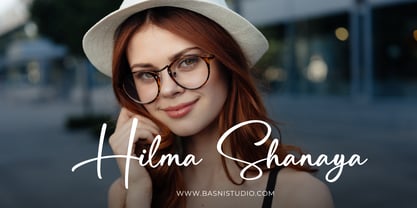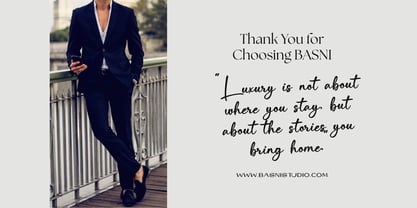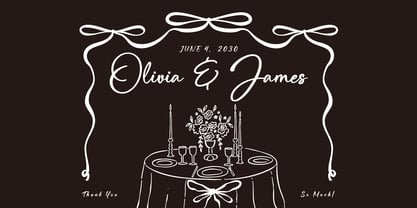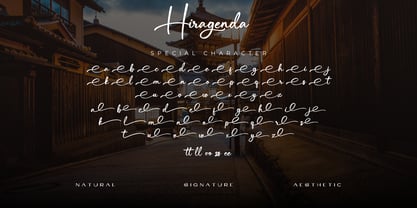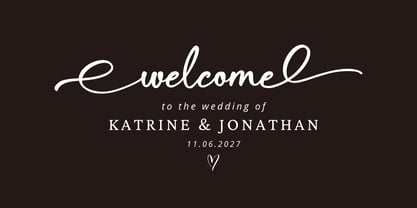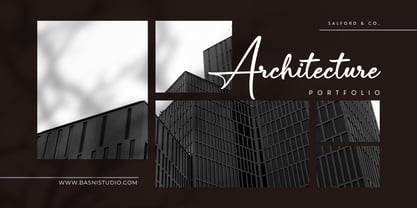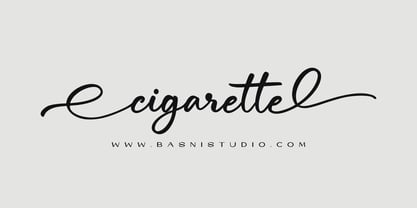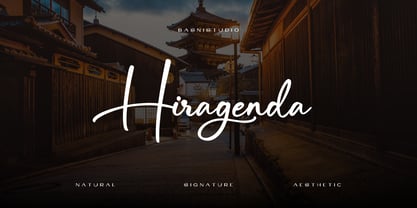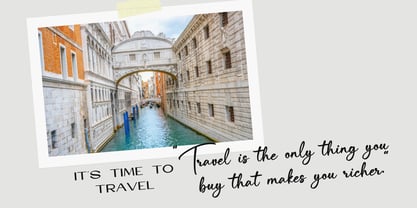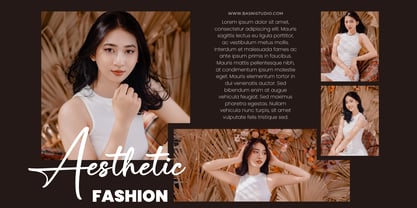
Hiragenda
A família de fontes Hiragenda foi desenhada por Bery Arisandi e publicada pela Basnistudio. Hiragenda contém 1 estilos. Saiba mais sobre esta família
Hiragenda – Signature Font
Hiragenda Signature Font Created with real pen strokes for a natural look and casual touch to everything from branding and social media to invitations and packaging.
Natural – Perfect for tagline, quotes, greeting cards, and more
Authentic Handwritten Feel – Created with real pen strokes for a natural look
Whether you’re building a powerful brand identity or crafting a standout design,
Hiragenda Signature Font Created with real pen strokes for a natural look gives you the creative edge you need.
• Uppercase & lowercase letters
• Swashes
• ligatures
• Numbers & punctuation
Hi introducing we are BasnistudioHere we design modern, unique and Amazing Font,perfect for branding, websites, design invitation, and editorial designs. Includes all upper and lower case letters, multilingual support, punctuation, binding and initial and final swash. everything can be easily accessed using software that supports OpenType.we hope our Amazing Font can make your Amazing project easier,